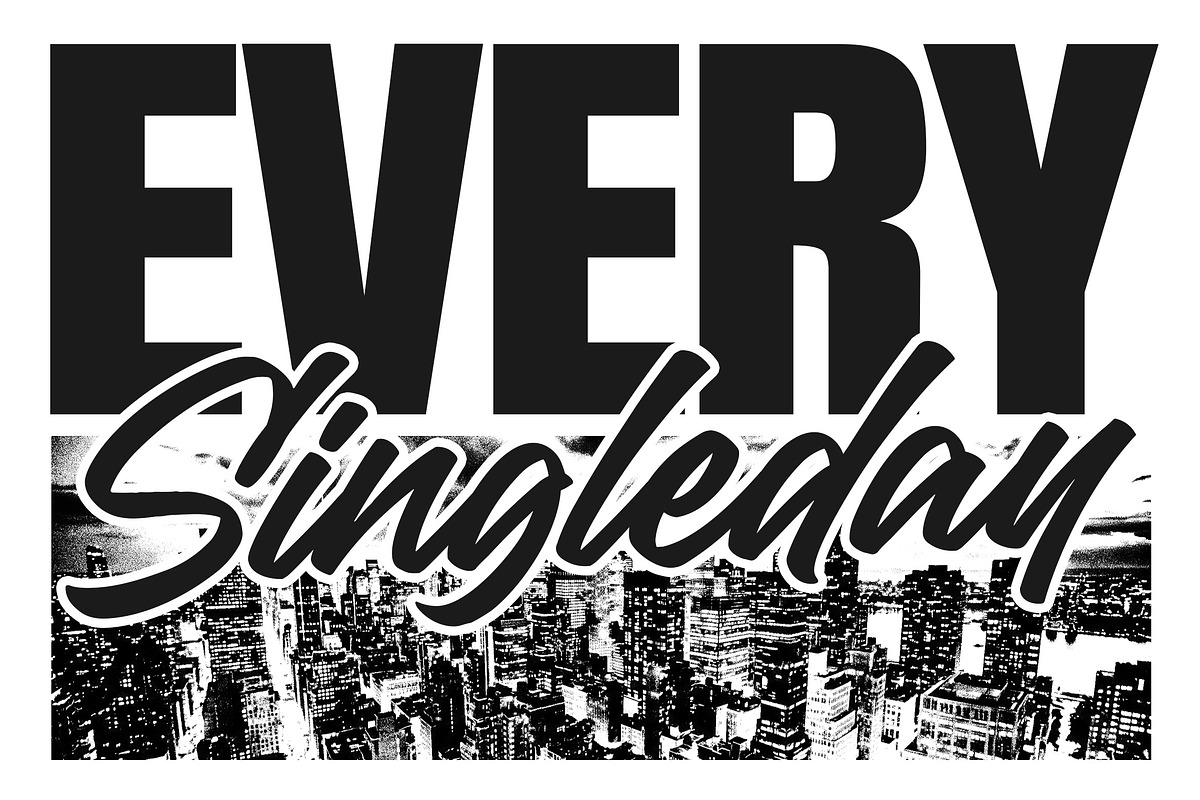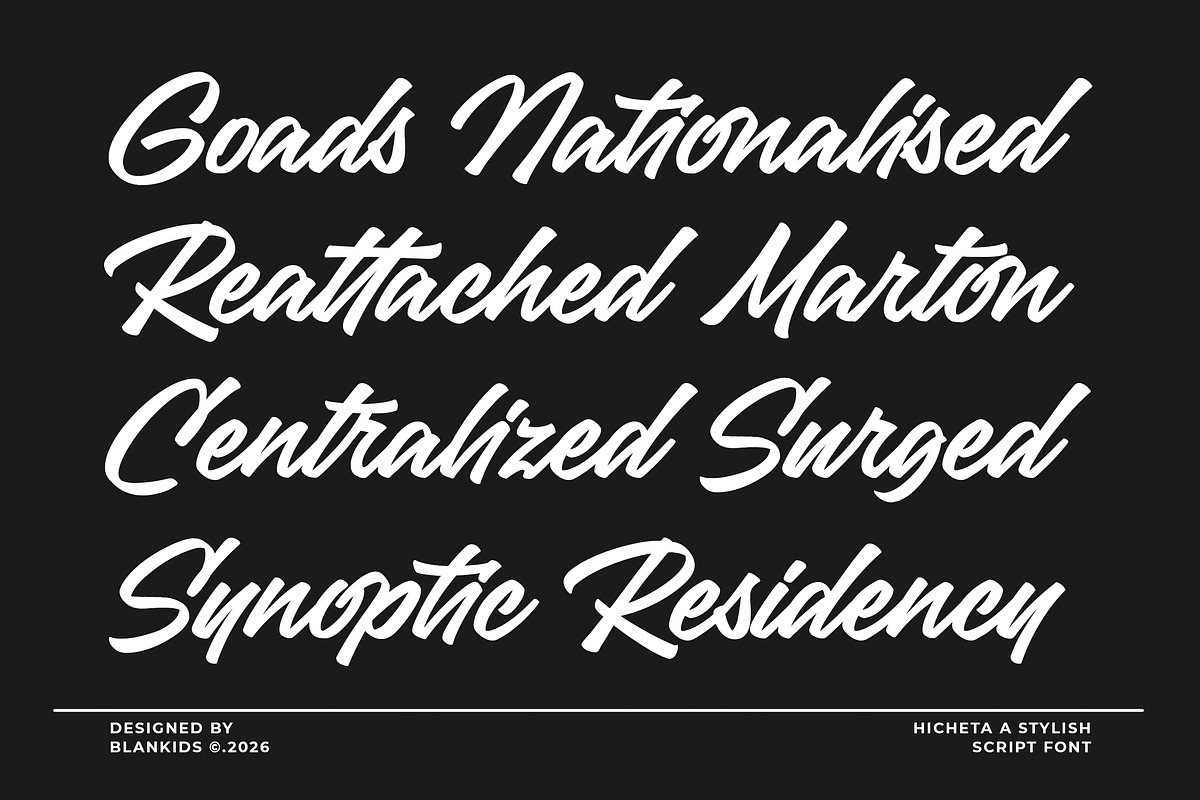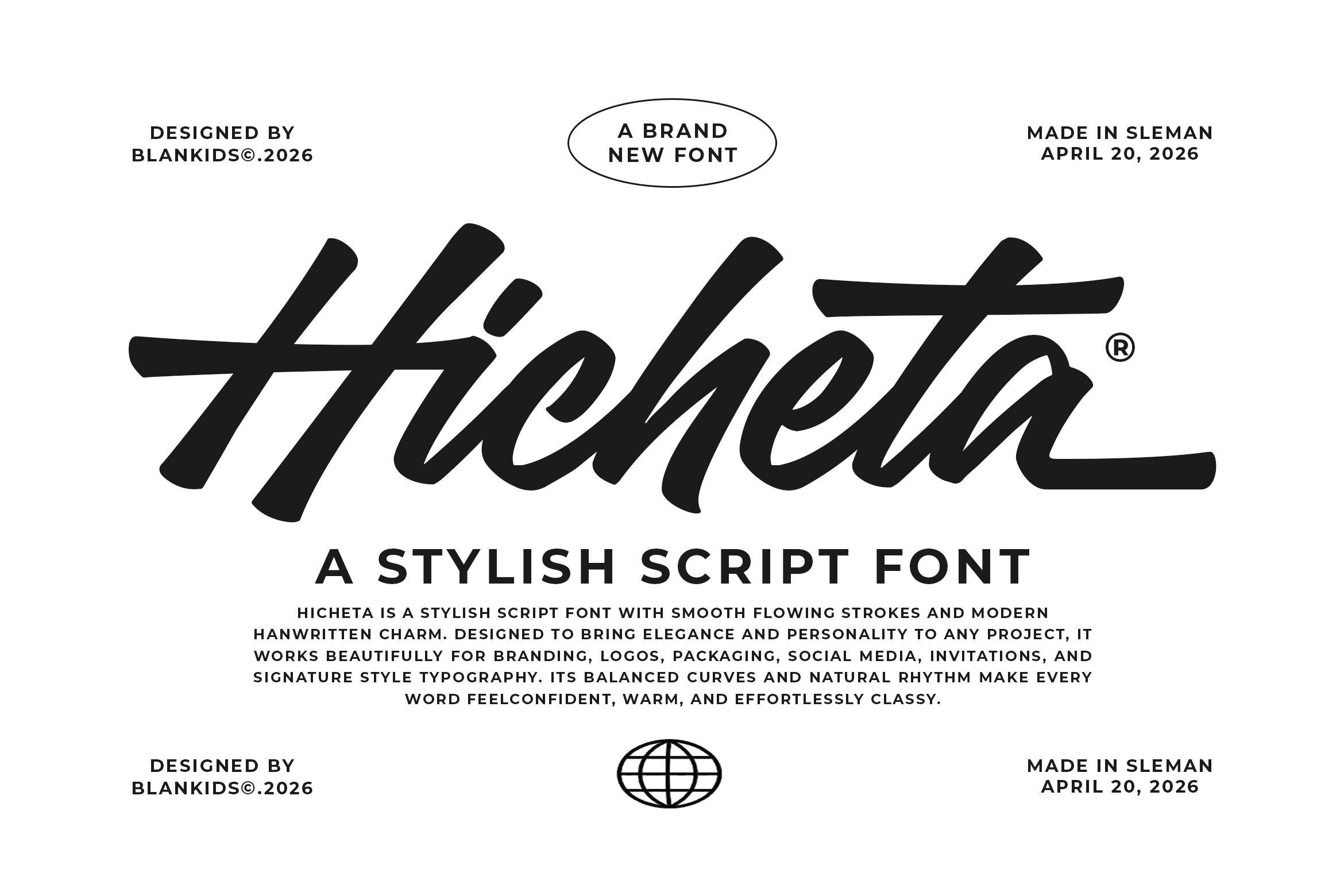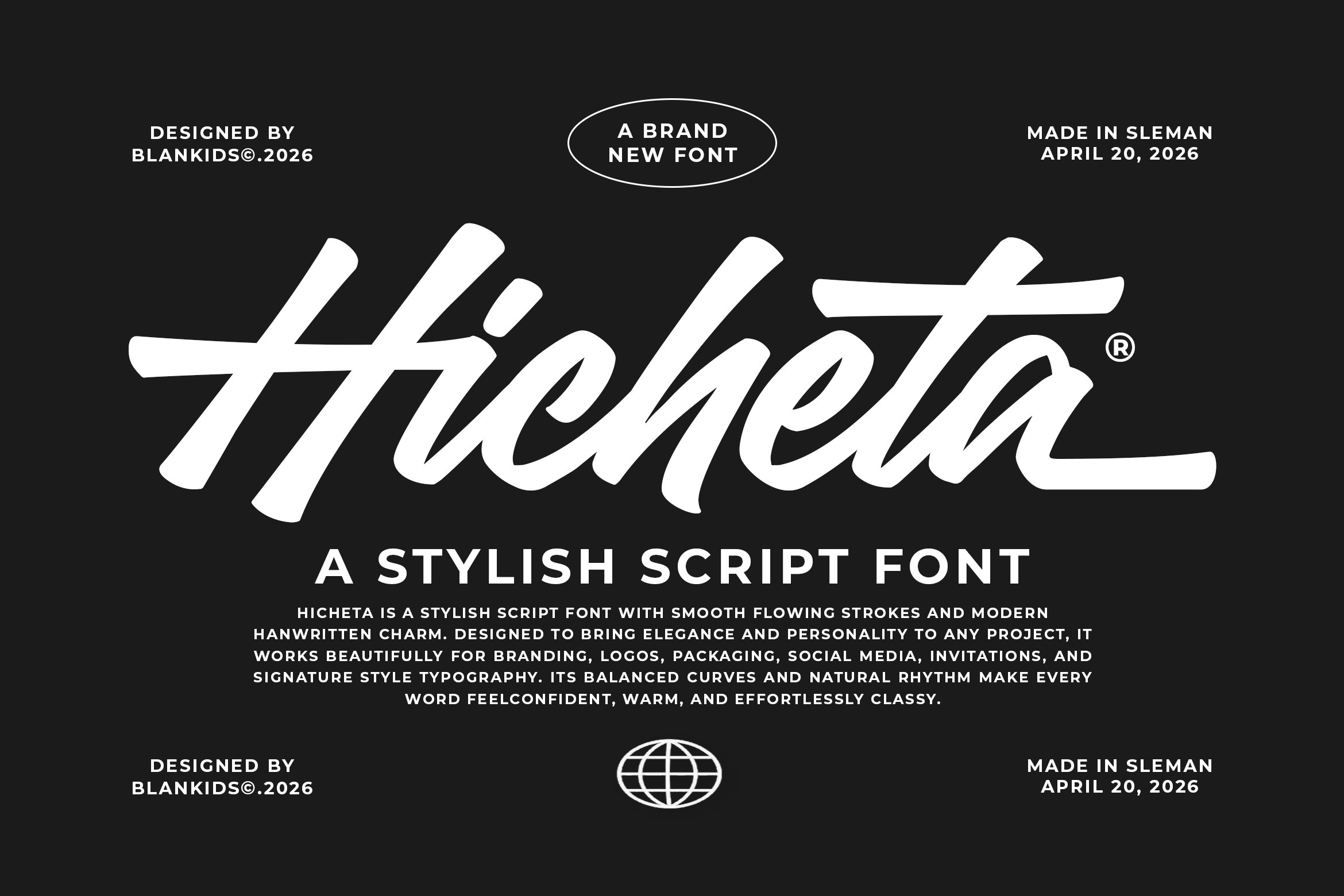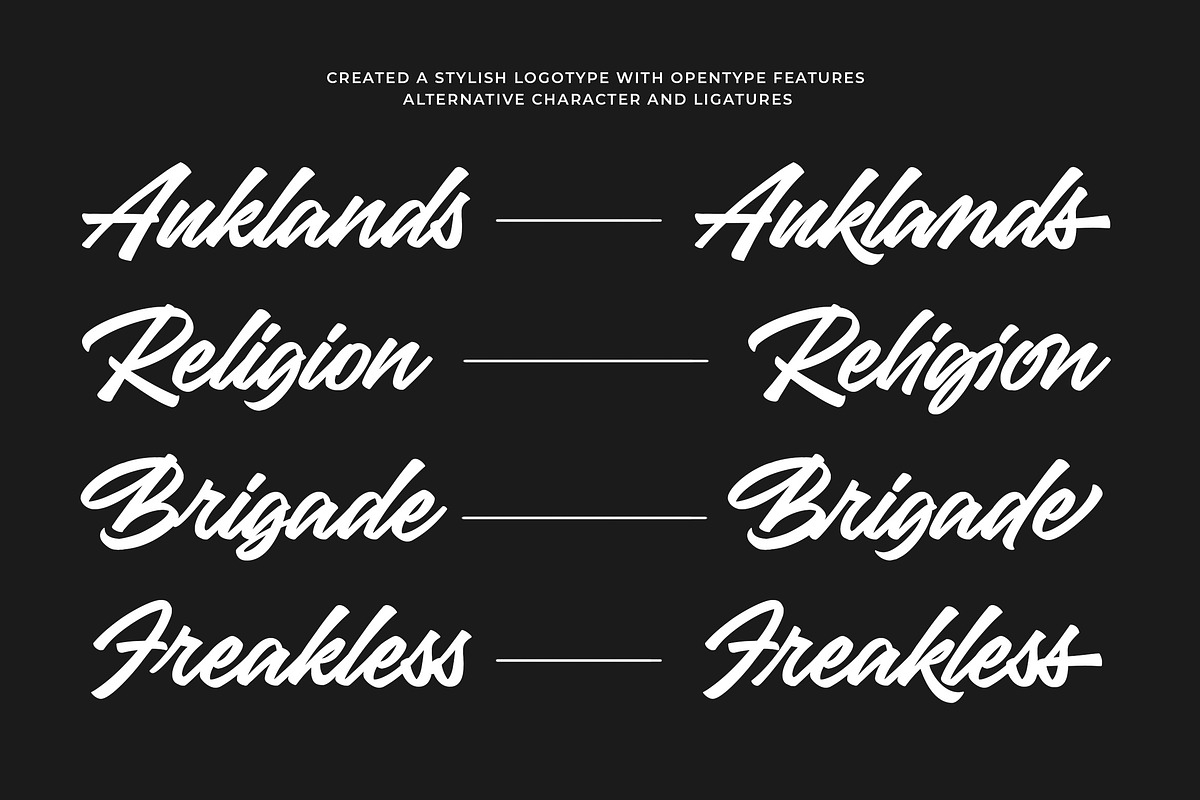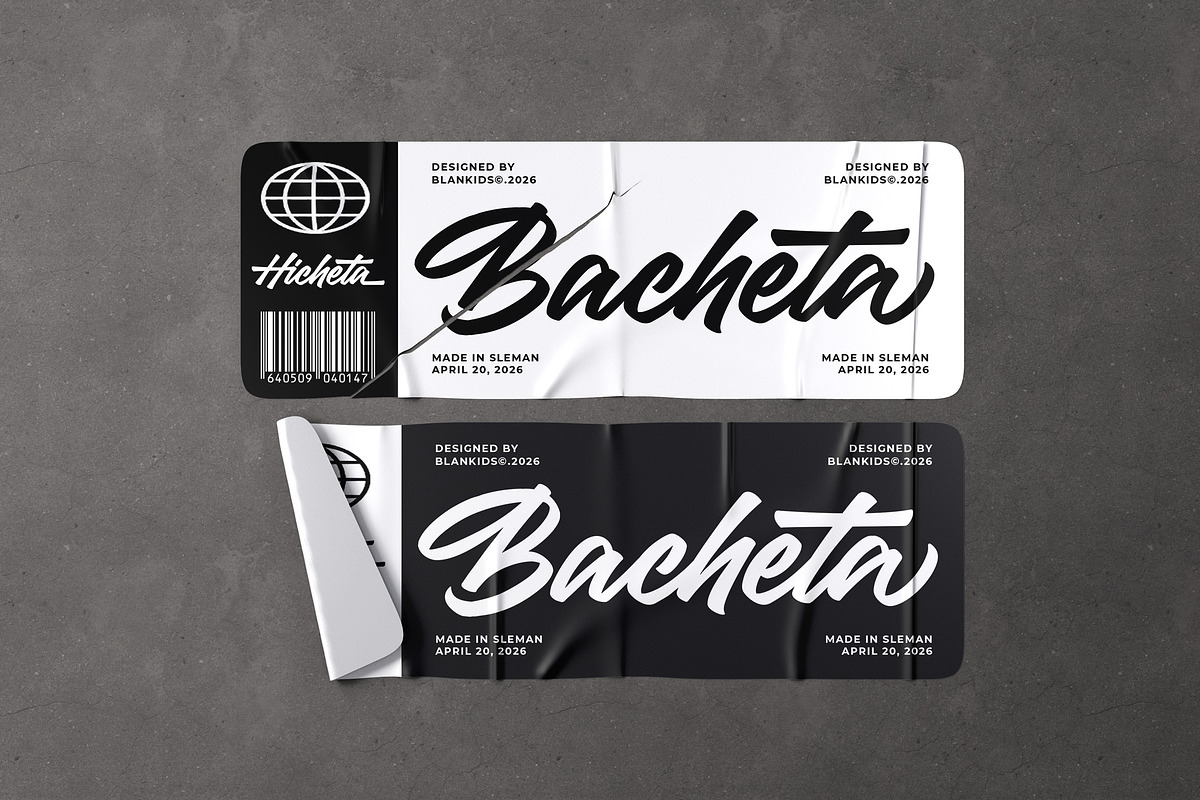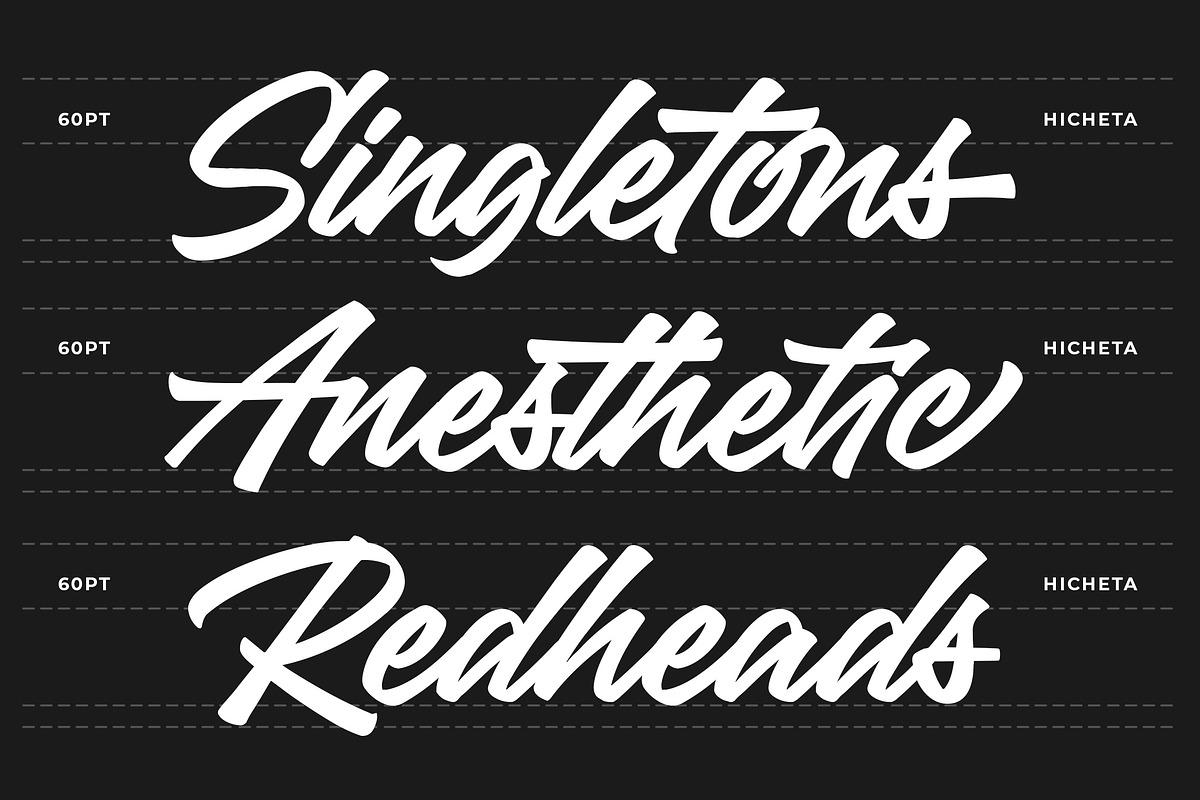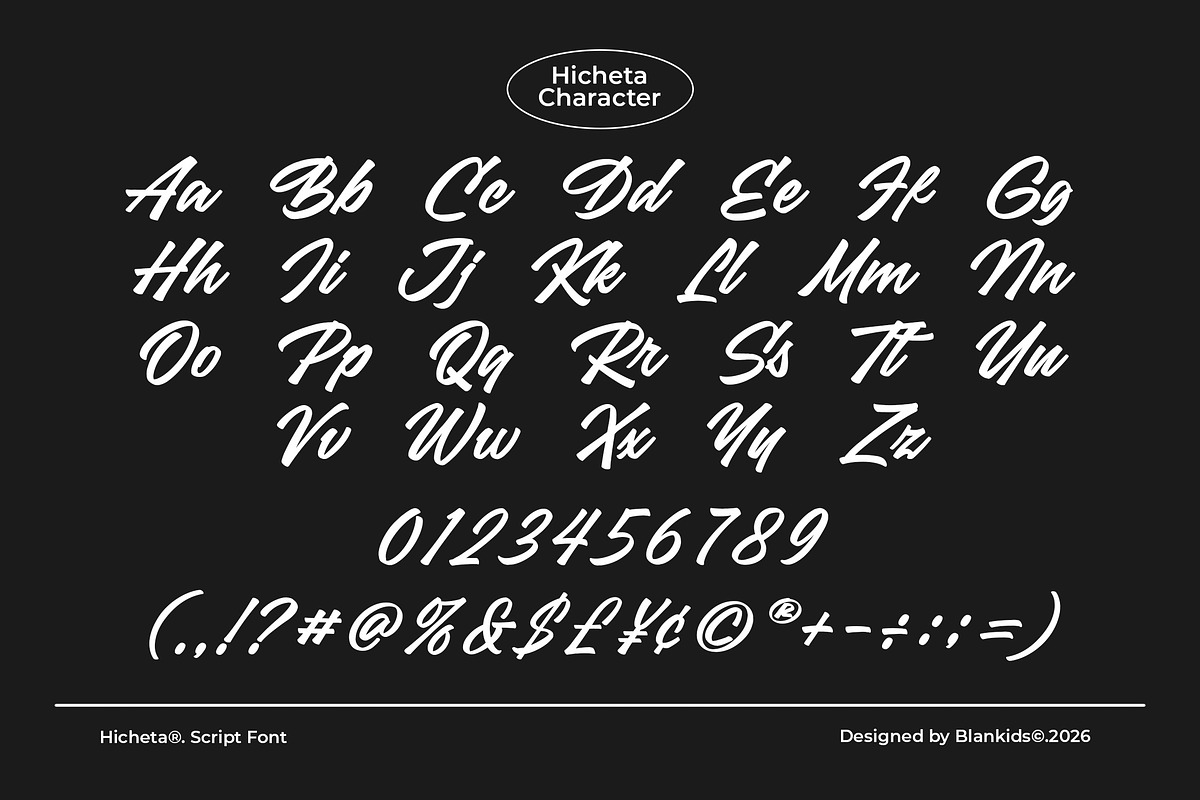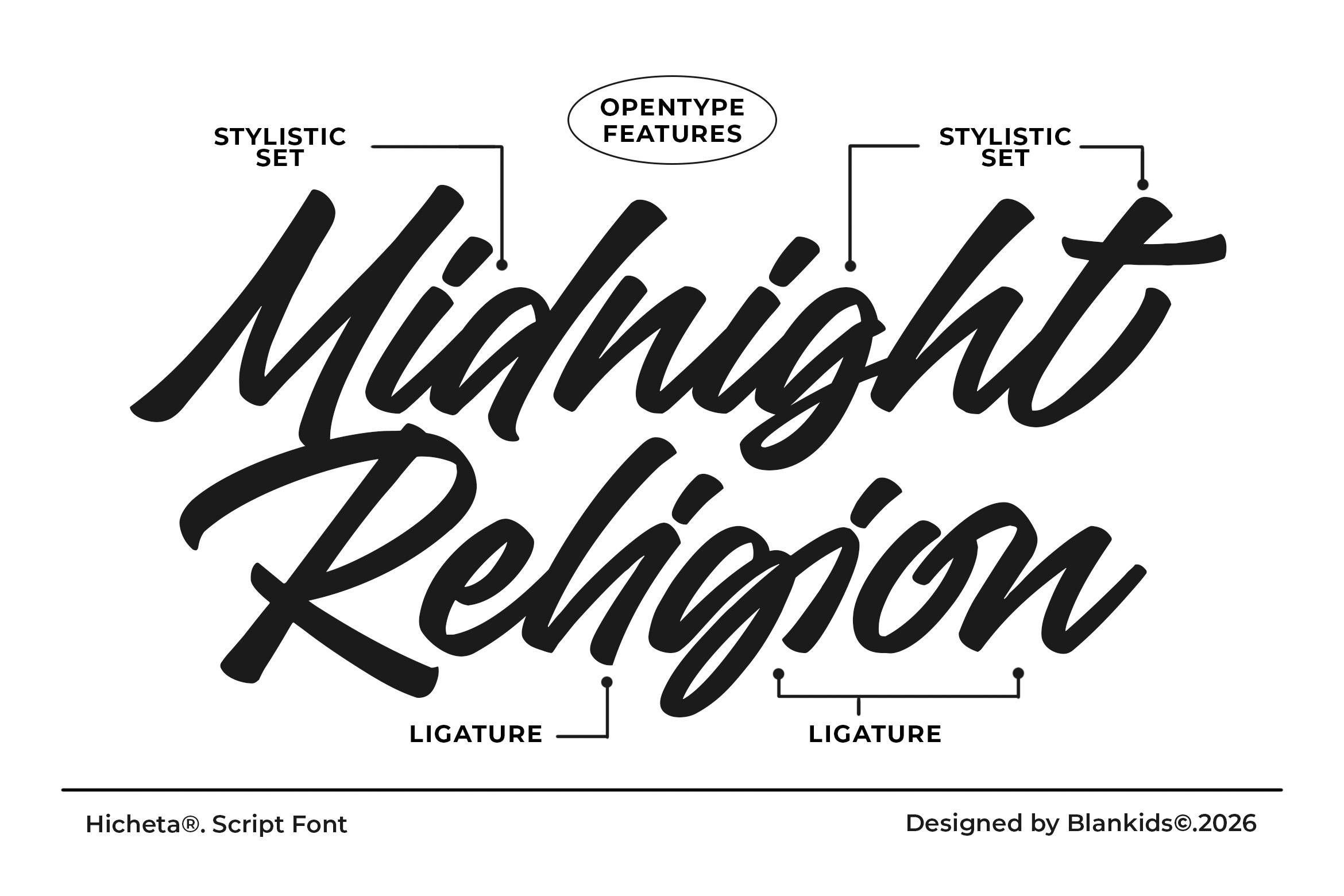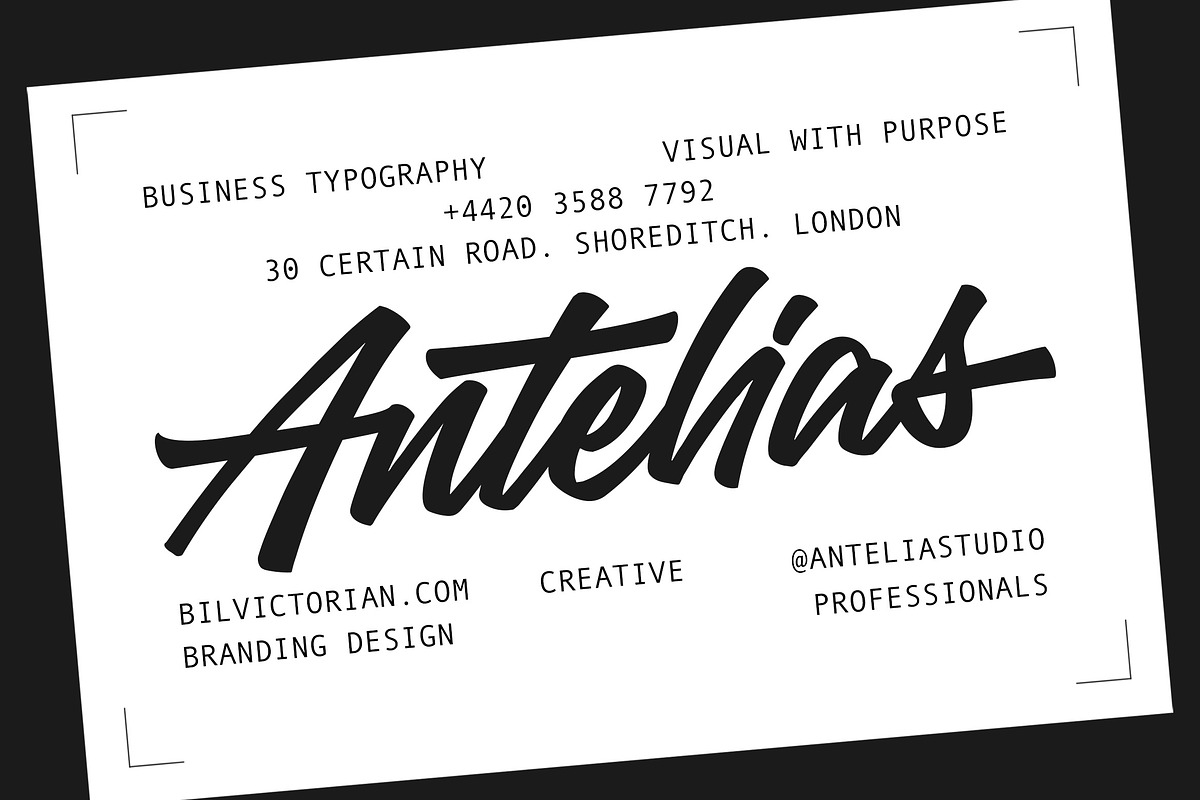
Hicheta a Modern Stylish Script Font
Hicheta is a modern stylish script font designed to bring bold personality and effortless elegance into contemporary design. Crafted with smooth flowing strokes, strong rhythm, and eye-catching ligatures, Hicheta delivers a natural handwritten feel while staying clean and highly legible across digital and print projects.
Built for today’s design trends, Hicheta combines urban script aesthetics with branding-ready versatility, making it perfect for creators who want typography that feels expressive, confident, and instantly recognizable.
Why Hicheta stands out
Hicheta was created to balance style and usability. The letterforms feature dynamic curves, confident swashes, and carefully tuned spacing so your text looks polished without extra effort. Whether used large or small, the font keeps its clarity and strong visual impact.
This font includes a rich set of OpenType features that allow designers to customize the look quickly and easily, giving every word a handcrafted feel.
OpenType Features
Contextual Alternates
With multiple alternate characters and ligatures, Hicheta helps you create natural lettering and unique typographic compositions in seconds.
Designed for modern creators
From bold street-inspired branding to elegant lifestyle visuals, Hicheta adapts beautifully across industries. It works equally well for minimalist, urban, luxury, or creative studio projects.
If you're looking for a script font that feels stylish, expressive, and ready for modern branding, Hicheta is the perfect addition to your font library.